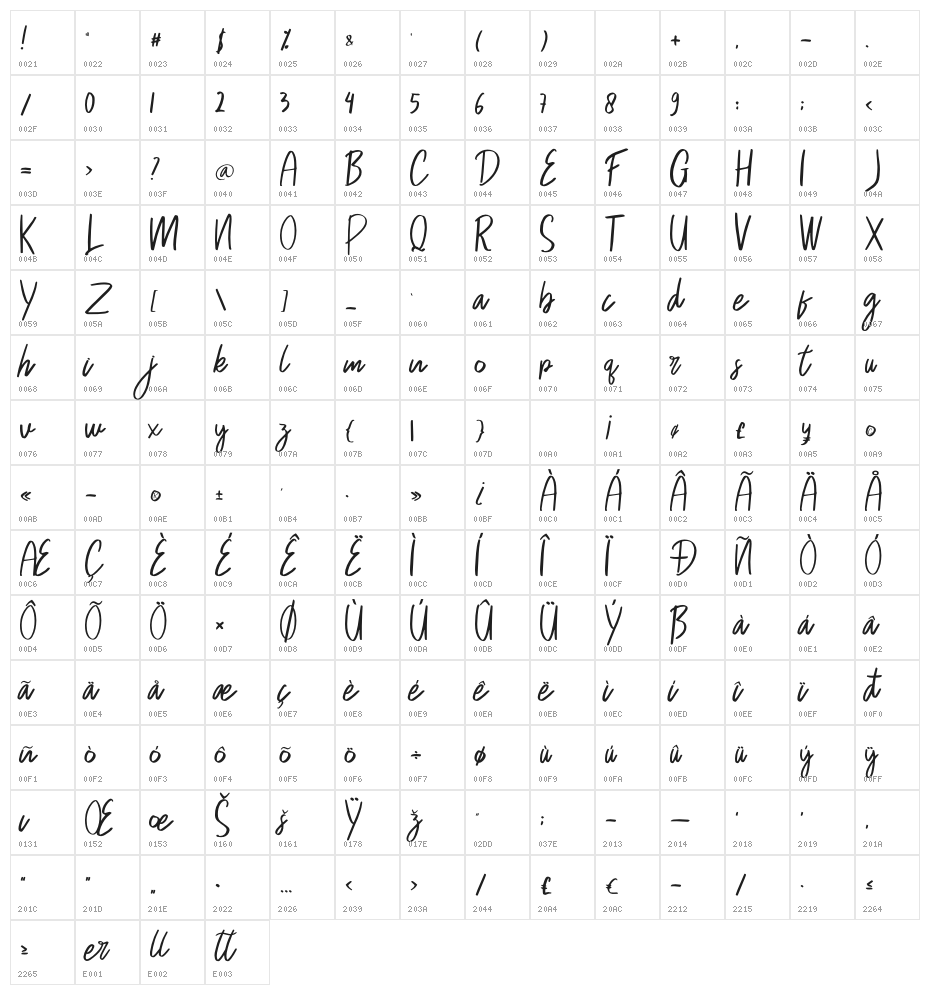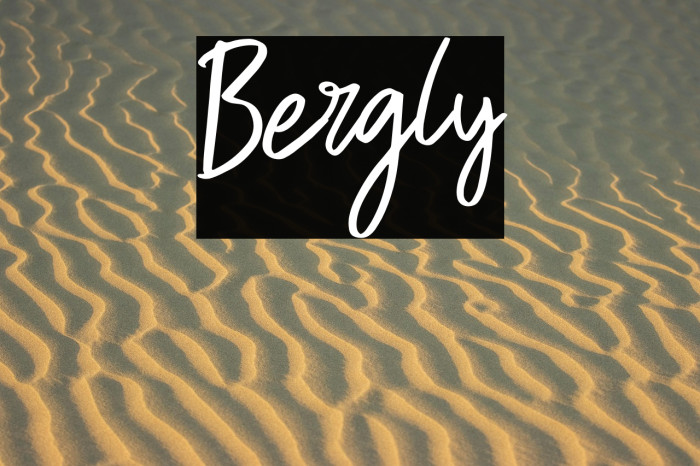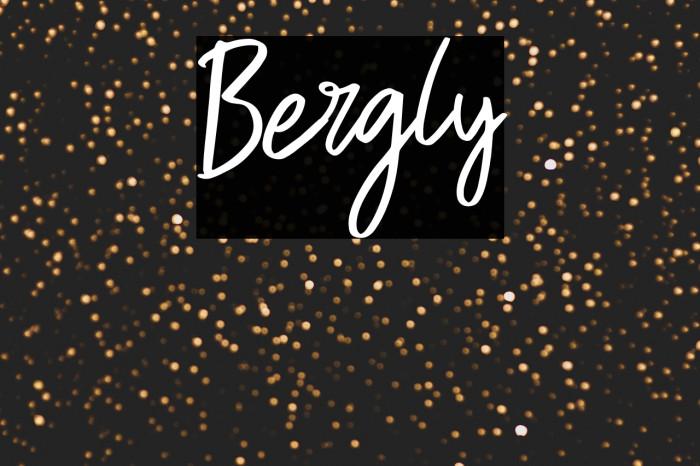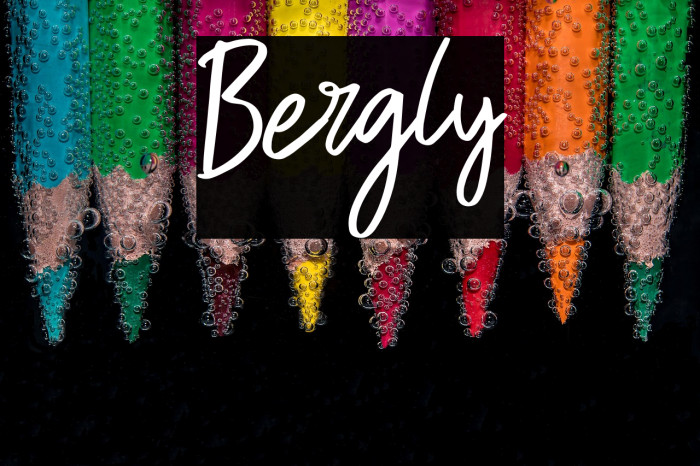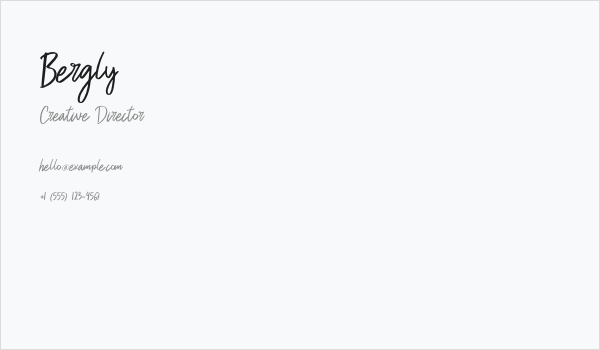
Bergly Font
Bergly Description
This font features a lively and expressive handwritten style, characterized by its fluid and dynamic strokes. The uppercase letters are tall and slightly narrow, giving a sense of elegance and sophistication. The lowercase letters maintain a consistent flow, enhancing readability while retaining a personal touch. Numbers and special characters are crafted with the same attention to detail, ensuring a cohesive look across all elements. The overall design exudes a modern yet timeless appeal, making it versatile for various creative applications.
| Proposed Projects | Ideal for greeting cards, invitations, personal branding, and creative projects that require a personal touch. |